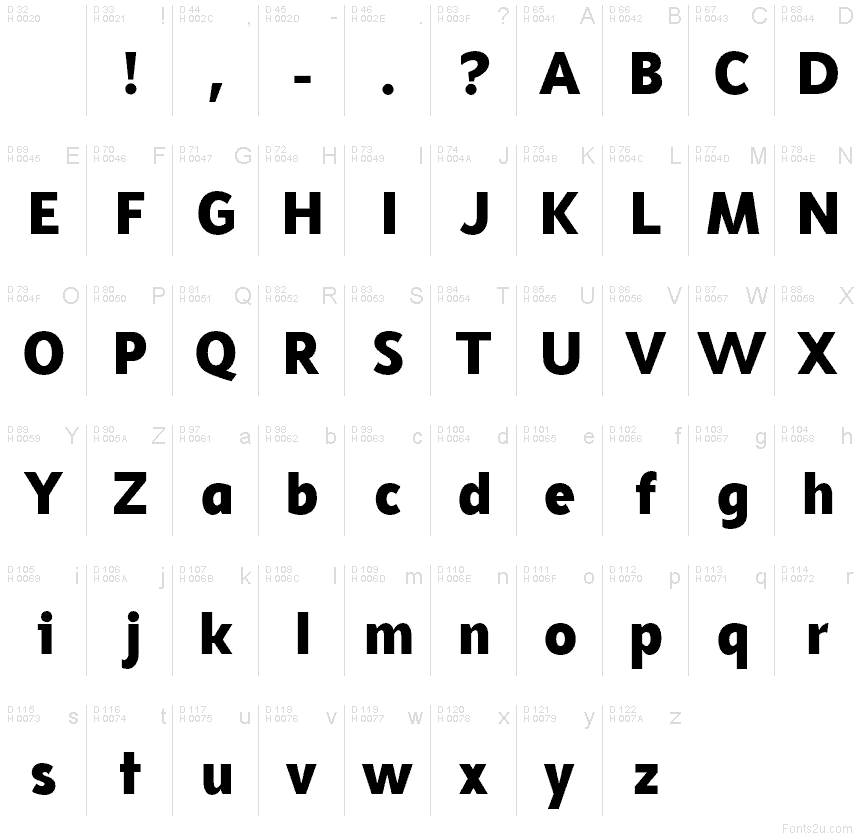
CF Gouble Demo Bold
CF Gouble Bold font by Creatifont Studios is a modern sans serif style with a geometric build and minimalistic features. Keeping the reader and audience in mind, and to give them high impact through messages both long and short, the letters are designed to be clean with clear outlines for optimum readability.